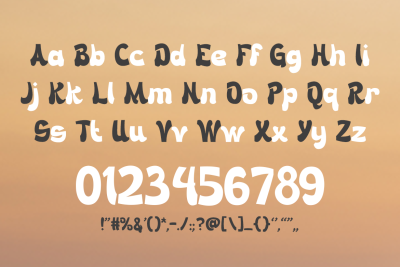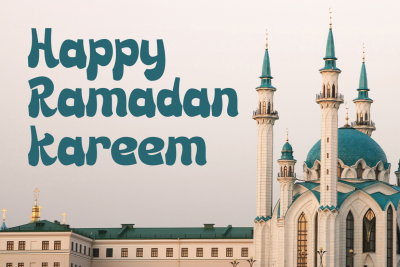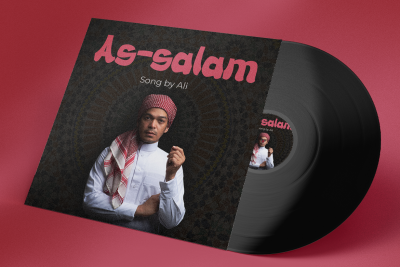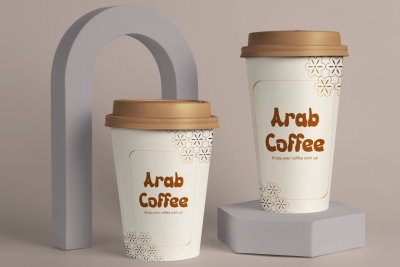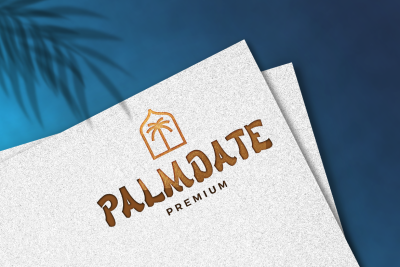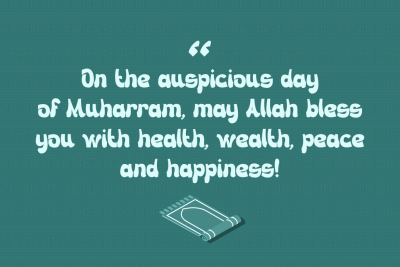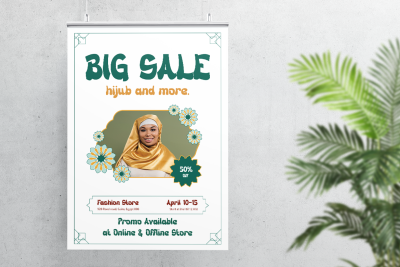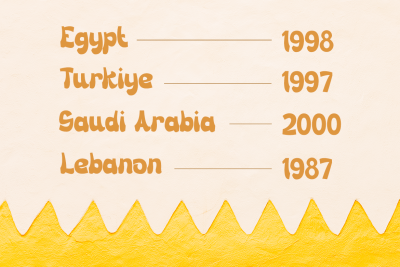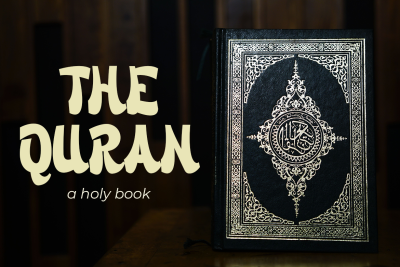
Instagram Font SHAKIRAย is a bold, expressive typeface that blends a playful, handcrafted look with modern design. Inspired by organic letterforms and artistic calligraphy, SHAKIRA adds a unique and stylish feel to any project. Moreover, its curvy and flowing letters create a lively rhythm, making it perfect for adding energy and personality. Whether for social media graphics, branding, or digital promotions, this font grabs attention instantly.
With a soft yet dynamic structure, SHAKIRA ensures excellent readability while adding fun and originality. Furthermore, its playful character suits various creative applications, making designs feel fresh and engaging. If you want to make a statement, SHAKIRA is the perfect choice for excitement and uniqueness.
Instagram Font SHAKIRA Suitable For:
1. Social Media & Influencers
SHAKIRA is ideal for Instagram posts, story highlights, and TikTok overlays. Consequently, its playful yet stylish nature helps content creators craft engaging visuals that stand out.
2. Branding & Logo Design
For businesses wanting a bold, fun identity, SHAKIRA balances modern aesthetics and artistic charm. Moreover, it works well for fashion brands, creative agencies, and lifestyle businesses.
3. Event Promotions & Posters
Whether promoting a festival, party, or art show, SHAKIRA brings vibrancy and movement to event materials. Additionally, its expressive forms capture excitement and draw attention.
4. Merchandise & Packaging Design
SHAKIRA is great for product labels, apparel graphics, and packaging. As a result, it complements brands valuing creativity and individuality, ensuring their products stand out.
5. Digital Marketing & Website Design
Web designers and marketers can use SHAKIRA for call-to-action buttons, headlines, and banners. Consequently, its bold presence ensures a strong brand impression with a fun, engaging look.
Instagram Font SHAKIRA is an energetic typeface designed for creatives who want impact. Elevate your designs to new heights and embark on a journey of artistic enlightenment with the exquisite charm ofย SHAKIRA. Whether for social media, branding, or print, its playful elegance ensures your message is delivered with style and originality.